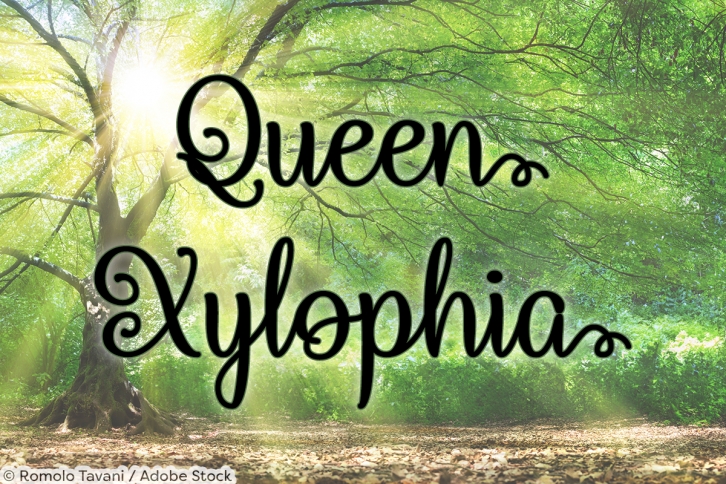
Queen Xylophia is a beautiful font that was designed by Misti Fonts. It's a great choice for designers and creatives who need such a font. It was released on May 21, 2018 and the file size is 1.17 MB. Queen Xylophia may give a more youthful, expressive and casual look to your project. It is a very beautiful, refined, elegant, and high-quality font.